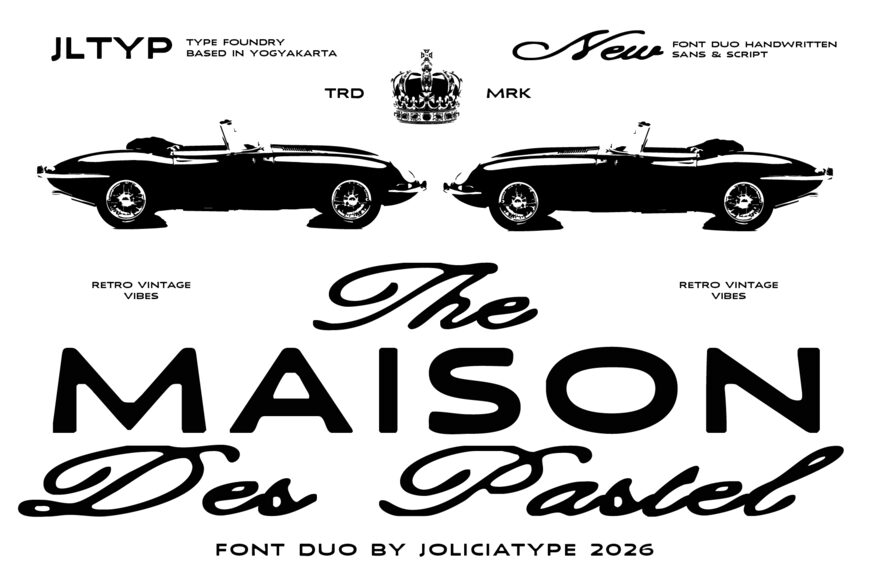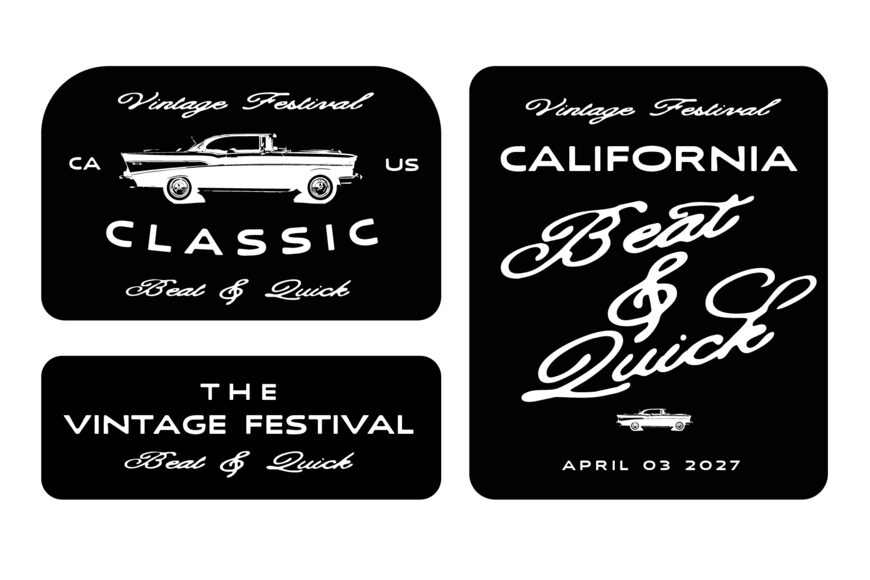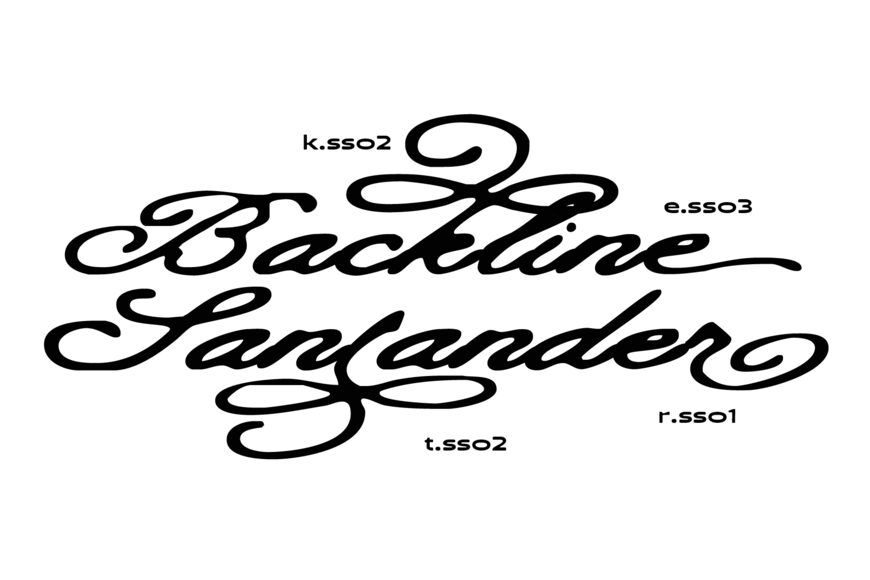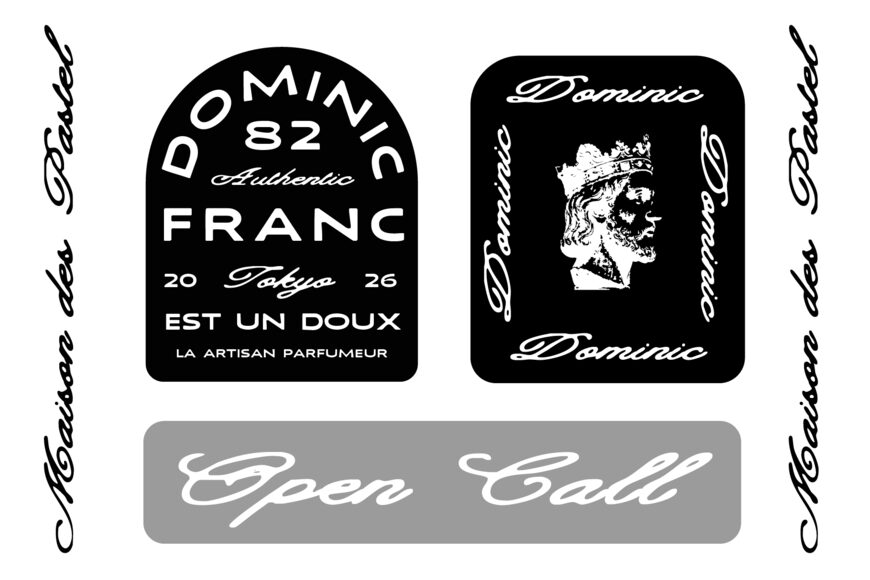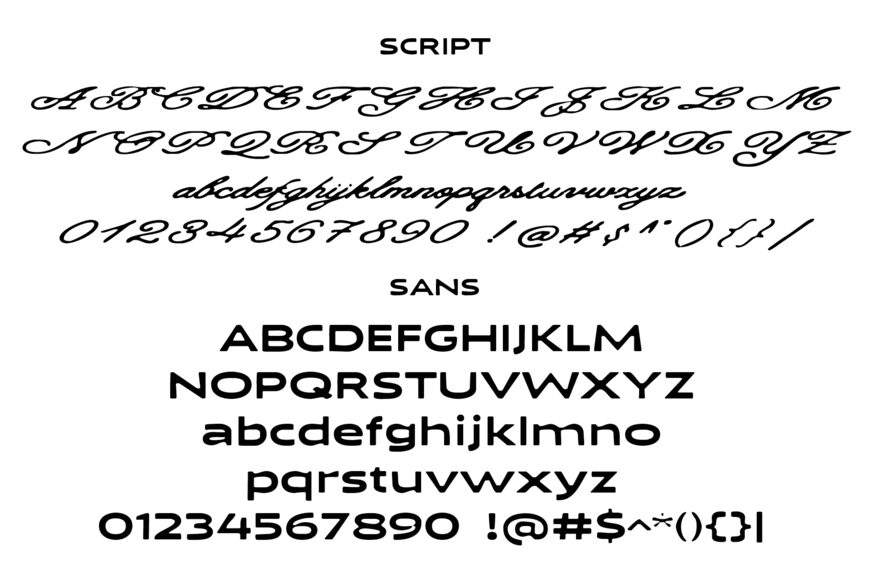
Maison des Pastel is a stylish vintage font duo that combines a bold sans serif with a rough handwritten script, creating a distinctive contrast between clean structure and expressive character. The sans serif brings a strong, modern-retro presence, while the handwritten script adds an authentic, spontaneous feel with its organic strokes and imperfect edges.
Inspired by retro typography, classic automotive culture, vintage advertising, and nostalgic graphic design, Maison des Pastel feels effortlessly cool, playful, and full of personality.